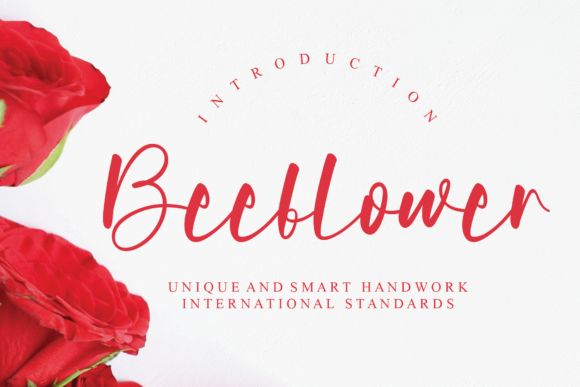
Step into the world of elegance and sophistication with Beeflower Font, the enchanting script font crafted by Misterletter.co. Immerse yourself in the flowing curves and delicate lines that evoke a sense of grace and timelessness. Let Beeflower Font be your muse as you create designs that captivate and inspire.
With its minimal design, Beeflower Font exudes a charming simplicity that complements any project. Its handwritten style infuses a personal touch, making your creations feel warm and inviting. Whether you're designing wedding invitations, branding materials, or book covers, Beeflower Font adds a touch of sophistication that elevates your work.
Transport your readers to a bygone era with Beeflower Font, the ultimate choice for book design. Its graceful strokes mimic the elegant writing of old, creating a sense of nostalgia and romance. let Beeflower Font be your secret weapon to capture the essence of classic literature and transport your readers to enchanting worlds.
Unleash your creativity and explore the endless possibilities of Beeflower Font. Its versatility extends to logos, social media posts, packaging designs, and more. With Beeflower Font, you have the power to turn ordinary designs into extraordinary expressions of art. Its timeless appeal ensures that your creations will stand the test of time, leaving a lasting impression on your audience.
Elevate your designs to new heights with Beeflower Font. Its captivating appearance and versatility make it a must-have for designers seeking elegance and charm. Let Beeflower Font be your guiding light as you embark on a creative journey that leaves your audience spellbound. Download Beeflower Font today and unlock the power to transform your designs into masterpieces.